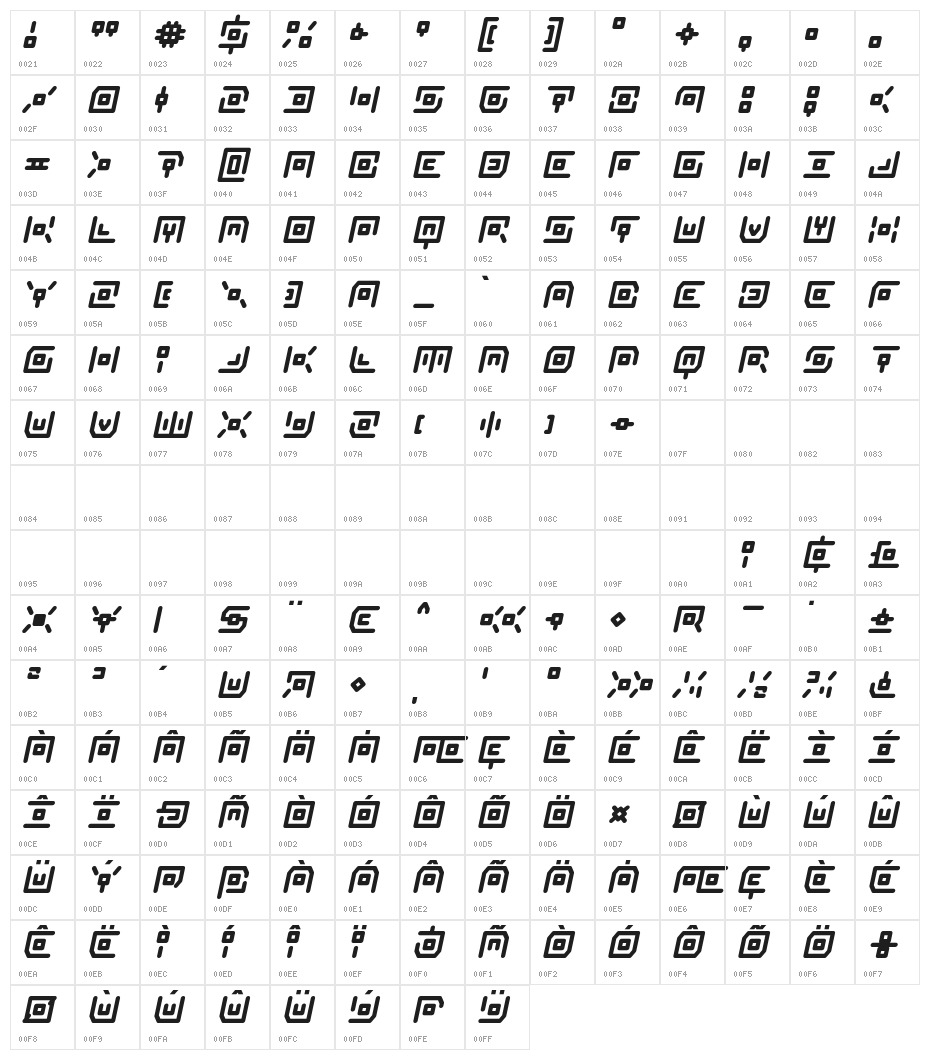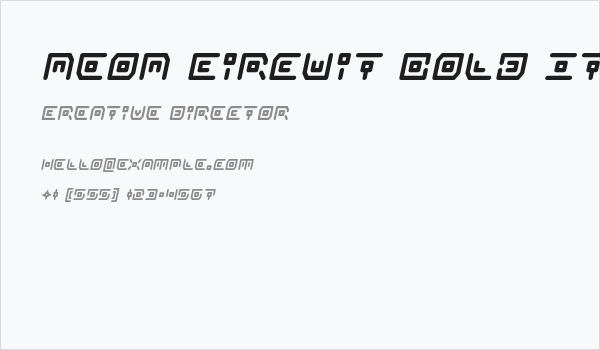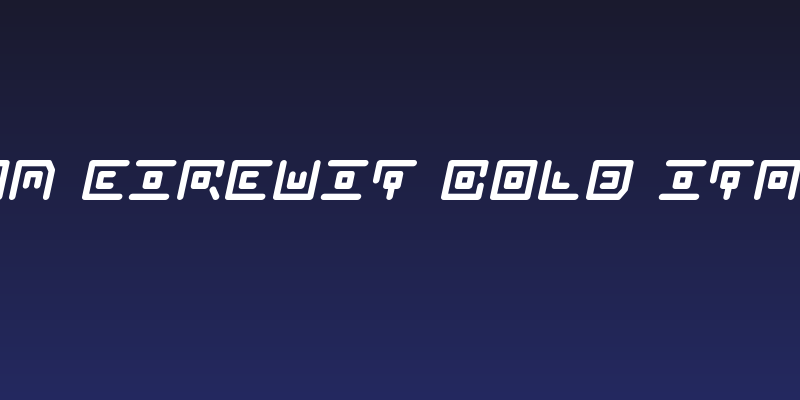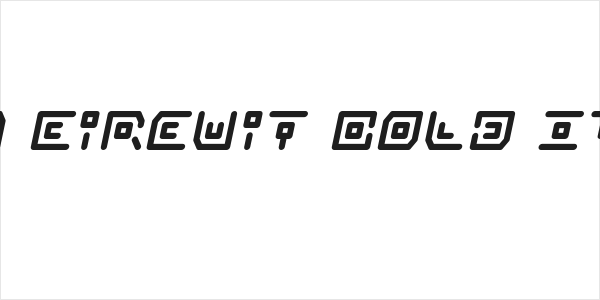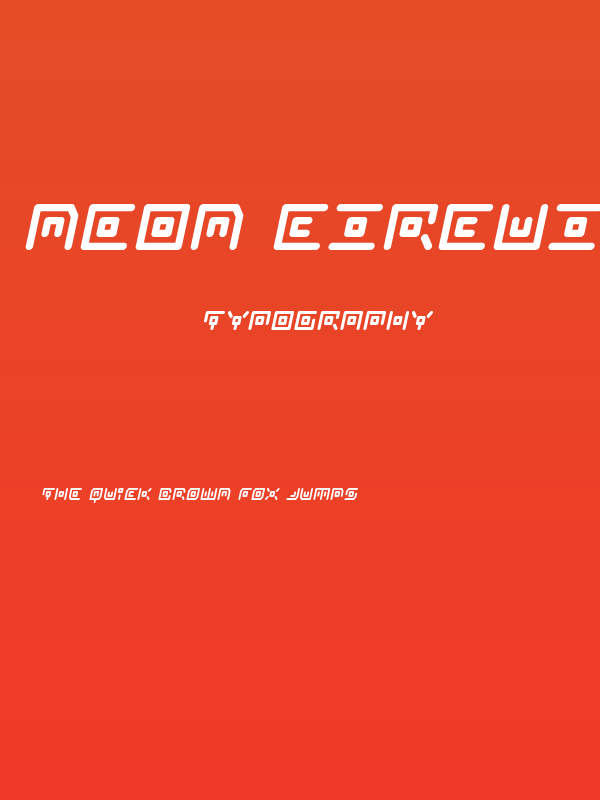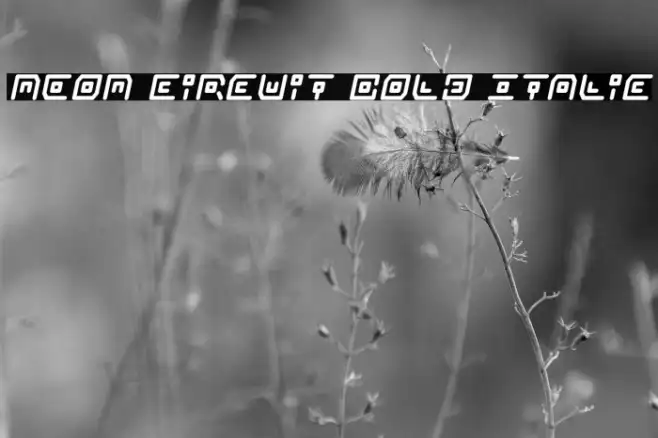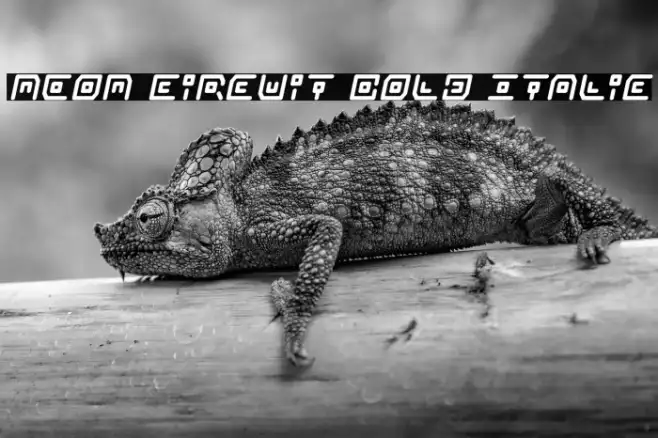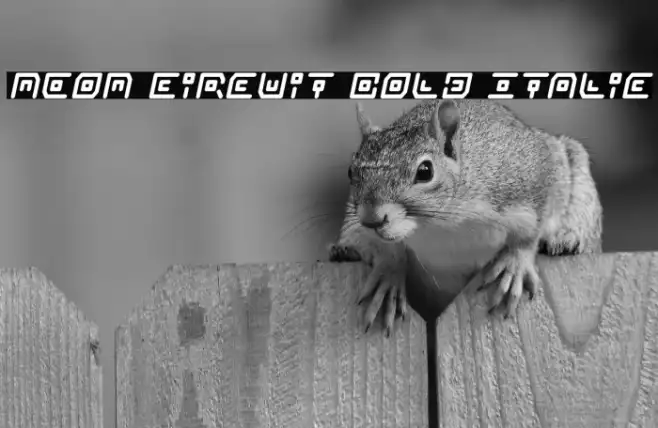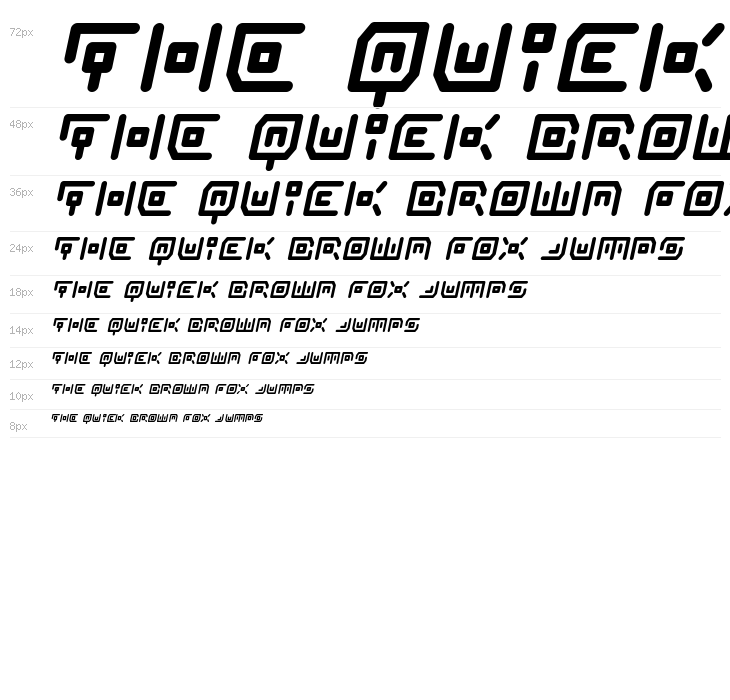
Neon Circuit Bold Italic Font
Neon Circuit Bold Italic Description
This font features a futuristic and digital aesthetic, reminiscent of neon lights and circuit board patterns. The characters are bold and italicized, with a distinct geometric design that incorporates sharp angles and rounded edges. The strokes are consistent in thickness, creating a uniform appearance across all characters. The font's style is highly decorative, making it ideal for projects that require a modern and tech-inspired look. It includes a full set of uppercase and lowercase letters, numbers, and a variety of special characters, each maintaining the cohesive design theme.